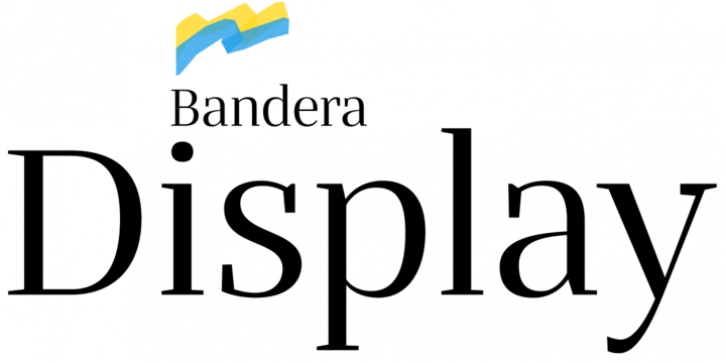
Bandera Display was designed by Andrij Shevchenko and published by AndrijType. Bandera Display contains 12 styles and family package options.
This contrast serif typeface is good for display use. Bandera Display has six weights with original italics. It catches attention in headlines of posters and magazines. It works well with Bandera (slab serif), Osnova (sans serif) and Bandera Text (serif) fonts.
Bandera is Spanish for 'flag'. And Bandera is a symbol of Ukrainian fighting for freedom for many years.